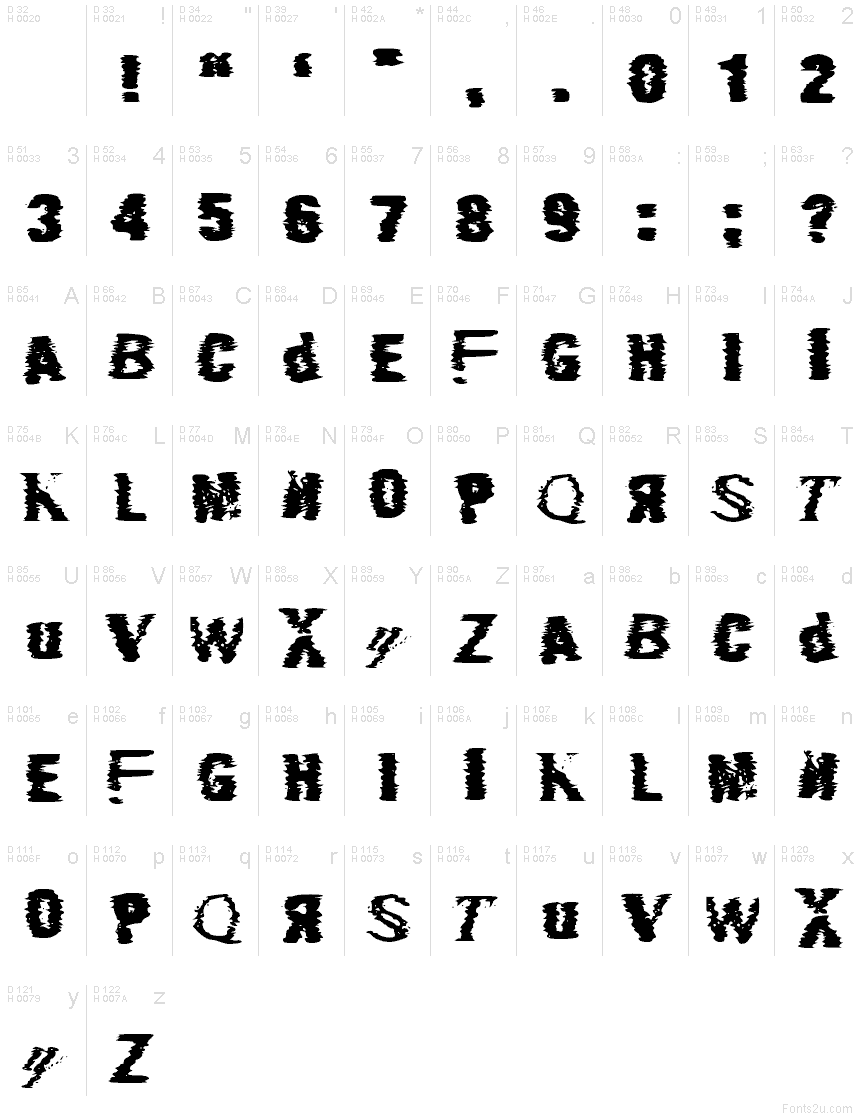
Bl Mindfuck Regular
Bl Mindfuck font by Blobify is a distorted bold display font with high energy, chaotic texture, and an edgy aesthetic. This grunge font with an abstract style adds enough distress to writings to reflect unconventional art. It features irregular letter shapes that appear handcrafted but are still pleasing to the eye.
The free display font can be used in designing seasonal projects, crafts, and logos. Business cards, branding designs for items or spaces are possible use cases as well. Use it in social media graphics and posts or go alternative with print media which can be book covers and magazine pages among others.